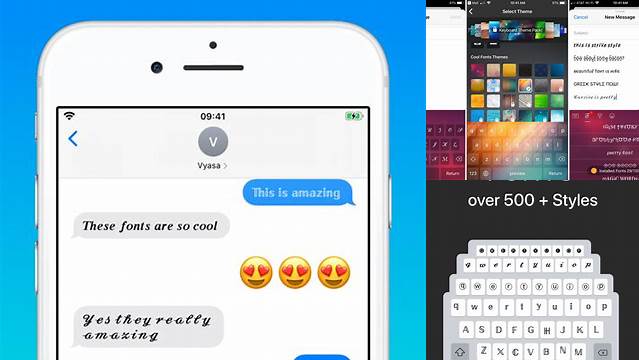
Free IPhone Keyboard Fonts: Customize Your Typing!
Are you tired of the same old boring keyboard font on your iPhone? Do you want to add a little personality and flair to your messages and emails? Well, guys, you're in luck! There are tons of awesome ways to spice up your iPhone keyboard with unique and stylish fonts, and the best part is, many of them are totally free! In this comprehensive guide, we'll dive deep into the world of keyboard fonts for iPhone, exploring various methods to customize your typing experience and make your device truly your own. So, let's get started and discover how to transform your iPhone keyboard from drab to fab!
Why Customize Your iPhone Keyboard Font?
Before we jump into the how-to, let's talk about why you might want to change your keyboard font in the first place. While the default iOS keyboard is functional and clean, it's not exactly the most exciting thing to look at. Customizing your keyboard font can bring a lot of benefits, let’s discuss the reasons to customize your iPhone keyboard font:
- Personalization: Let's face it, we spend a significant amount of time typing on our iPhones, whether it's sending texts, writing emails, or posting on social media. Changing your keyboard font is a simple yet effective way to personalize your device and make it feel more like your own. You can choose a font that reflects your personality, style, or even your mood.
- Improved Readability: Depending on your eyesight or personal preferences, some fonts might be easier to read than others. If you find the default iOS font a bit straining on your eyes, especially during long typing sessions, switching to a different font with clearer letterforms and spacing can significantly improve readability and reduce eye fatigue. This is particularly helpful for users with visual impairments or those who simply prefer a larger or bolder font.
- Enhanced Aesthetics: A stylish keyboard font can simply make your iPhone look more aesthetically pleasing. It's a small detail that can make a big difference in the overall look and feel of your device. Imagine typing with a sleek and modern font or a playful and whimsical one – it can add a touch of personality and fun to your everyday interactions. Plus, it's a great way to show off your individual style to your friends and colleagues.
- Unique Expression: The font you choose can be a form of self-expression. Just like your clothing or your hairstyle, your keyboard font can communicate something about your personality and taste. A bold and edgy font might convey confidence and assertiveness, while a delicate and elegant font might suggest sophistication and grace. Choosing a font that resonates with you can be a subtle way to express yourself and stand out from the crowd.
- Fun and Engagement: Let's not forget the fun factor! Changing your keyboard font can be a simple and enjoyable way to freshen up your iPhone experience. It's like giving your device a mini-makeover. You can experiment with different fonts and styles until you find the perfect one that suits your mood and preferences. It can also be a conversation starter – your friends might be curious about your cool new font, giving you a chance to share your customization tips and tricks.
In short, customizing your iPhone keyboard font is a fantastic way to personalize your device, improve readability, enhance aesthetics, express yourself, and add a bit of fun to your daily routine. With so many options available, there's no reason to stick with the default font if it doesn't quite suit your style. So, let's explore the various methods you can use to change your keyboard font and unlock a whole new world of typing possibilities!
Methods to Get Free Keyboard Fonts on Your iPhone
Now that we're all on board with the idea of customizing our iPhone keyboards, let's dive into the nitty-gritty of how to actually do it. Luckily, there are several methods you can use to get free keyboard fonts on your iPhone, each with its own set of pros and cons. We'll explore a few of the most popular and effective options, so you can choose the one that best suits your needs and technical skills.
1. Using Third-Party Keyboard Apps
One of the easiest and most popular ways to change your keyboard font on your iPhone is by using third-party keyboard apps. These apps, available on the App Store, offer a wide range of customization options, including different fonts, themes, and even keyboard layouts. They essentially replace your default iOS keyboard with a custom one, giving you full control over its appearance and functionality. Here's a step-by-step guide on how to use third-party keyboard apps:
- Browse the App Store: The first step is to head over to the App Store and search for “keyboard fonts” or “custom keyboard” apps. You'll find a plethora of options, ranging from free apps with limited features to paid apps with more advanced customization capabilities. Some popular choices include Gboard (Google Keyboard), SwiftKey Keyboard, and Fonts Keyboard. Take some time to browse through the options, read reviews, and check ratings to find an app that seems like a good fit for you.
Customizing your iPhone keyboard font is a simple yet effective way to personalize your device and enhance your typing experience. Whether you opt for a third-party keyboard app or a font-changing app, there are plenty of options available to suit your style and preferences. Remember to prioritize readability and choose a font that feels comfortable and natural to type with. So, go ahead and explore the world of keyboard fonts and transform your iPhone into a truly unique device! Guys, have fun experimenting and finding the perfect font to express yourself! You can make your typing experience unique and enjoyable by changing the keyboard fonts on your iPhone.